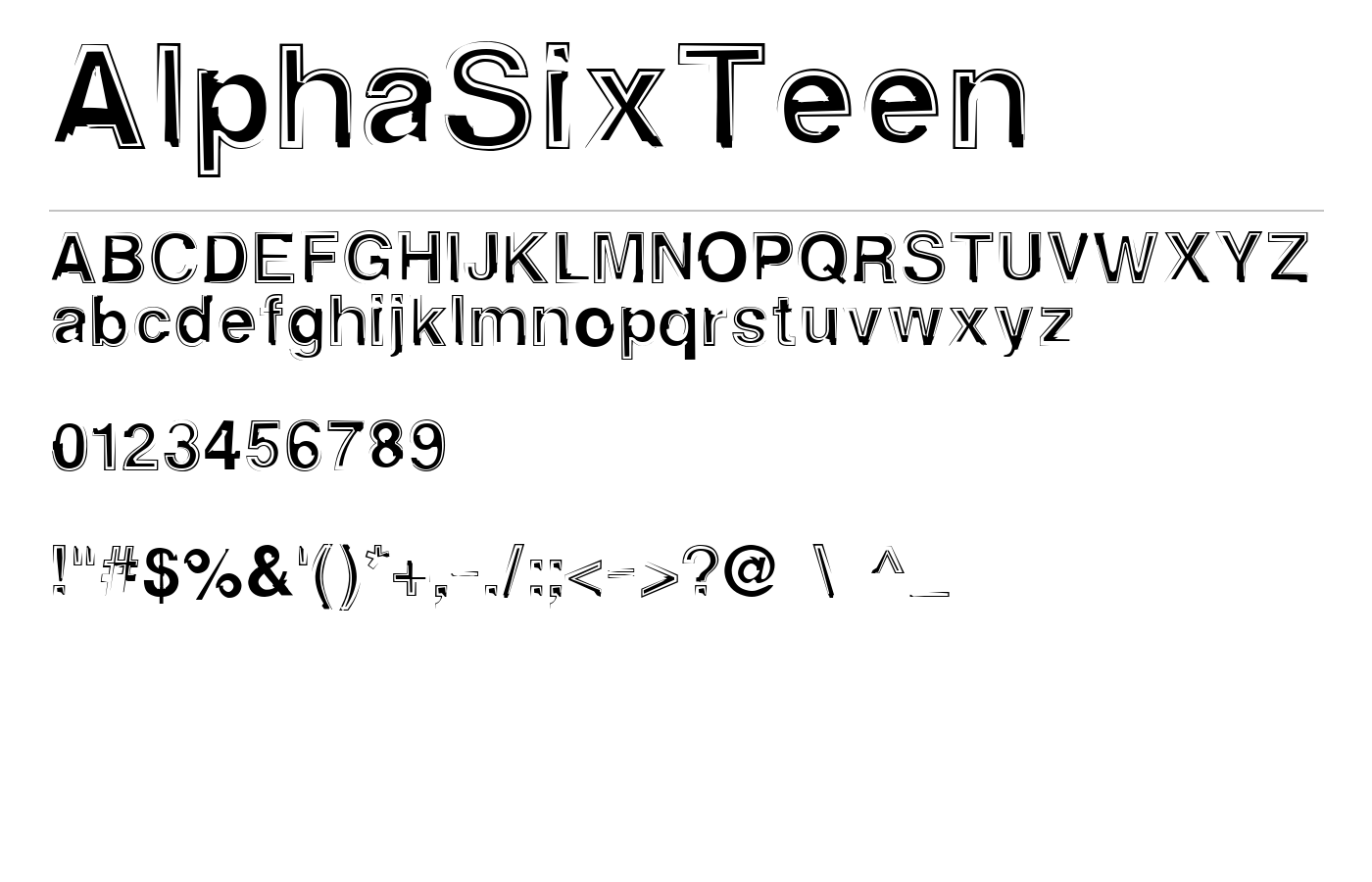
AlphaSixTeen is a bold and quirky sans serif font with an eye-catching, layered design that combines solid and outlined strokes, giving it a playful and dynamic feel. Its uneven, slightly distorted letterforms and mixed stroke thickness create a youthful, modern vibe ideal for creative projects, posters, and branding that wants to stand out. This font works best for headlines and display purposes where a fun, energetic personality is needed.
AlphaSixTeen Font
About AlphaSixTeen Font